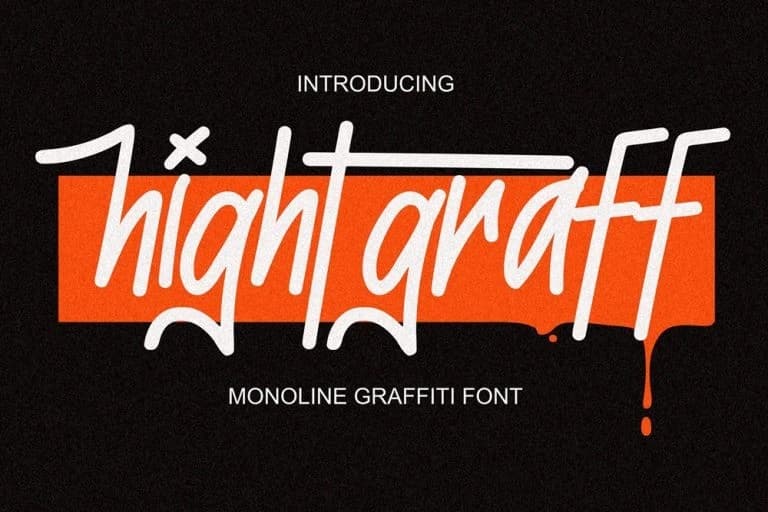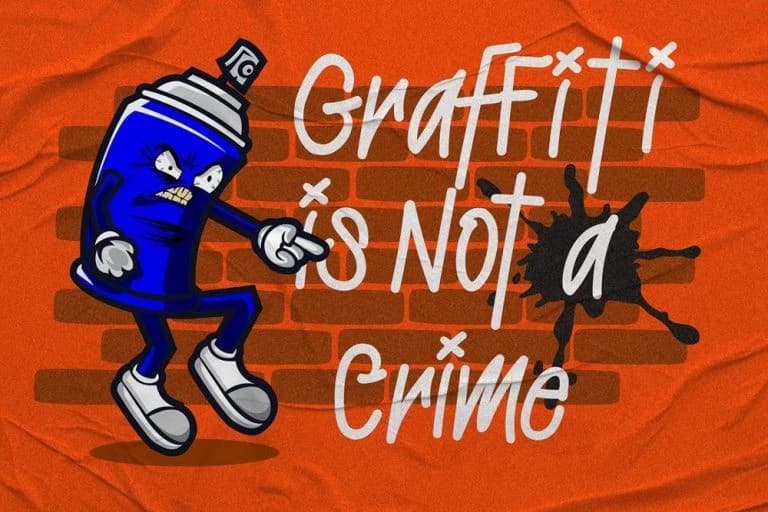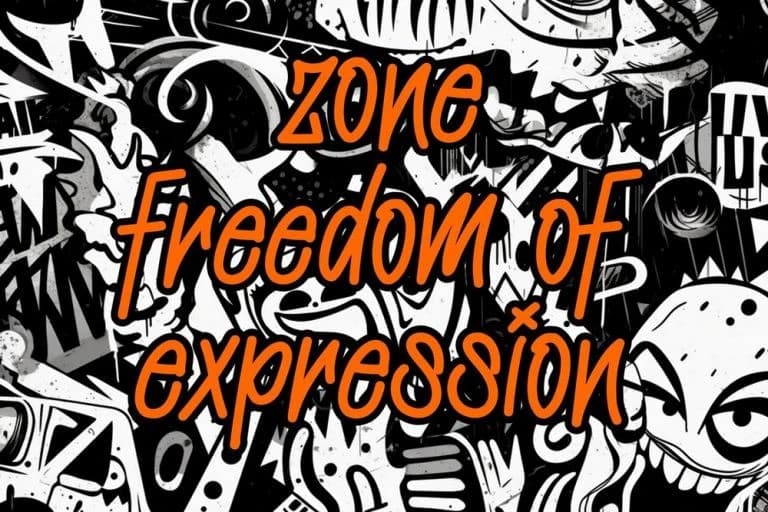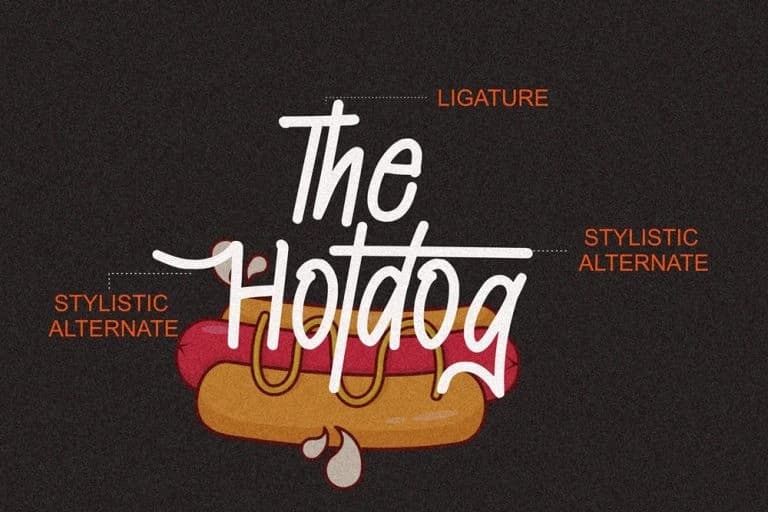
Hightgraff Graffiti Font
Hightgraff Graffiti Font is a clean yet expressive graffiti font that blends monoline precision with the natural flow of handwritten street lettering. Designed for modern creators, this monoline graffiti font delivers a smooth